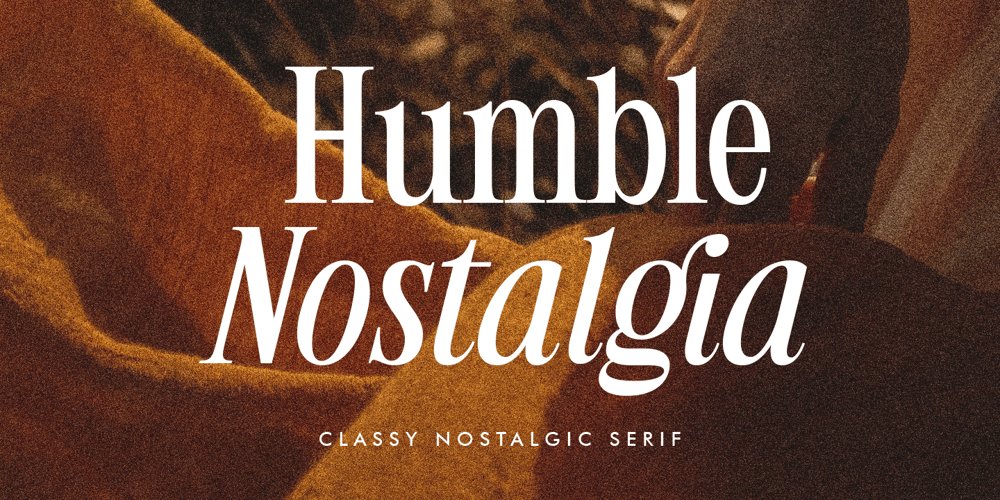
Humble Nostalgia
Humble Nostalgia font
Humble Nostalgia Font Family was designed by Ahmad Ramzi Fahruddin and published by Arterfak Project. Humble Nostalgia contains 2 styles and family package options. Experience the classic feel with Humble Nostalgia! A classy and elegant serif font that will bring you to the 80s era.Specially crafted with a modern touch, designed with tight kerning and spacing to achieve a more aesthetic appearance.An amazing combination of regular and italic styles that looks great in both large and small sizes, making it the perfect choice for your special designs. A perfectly versatile font pair suitable for lifestyle!